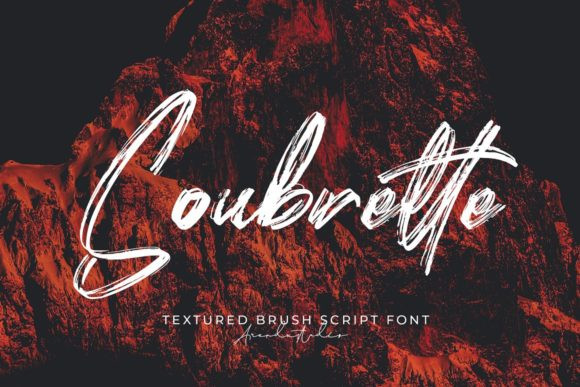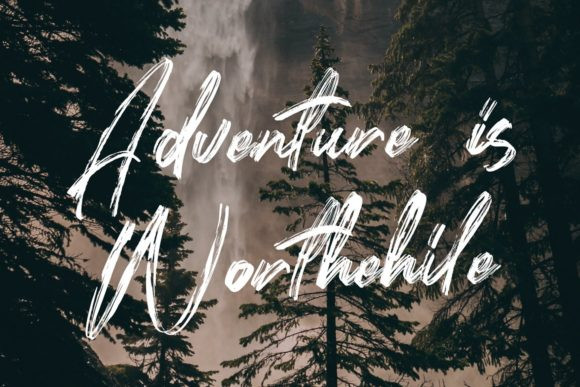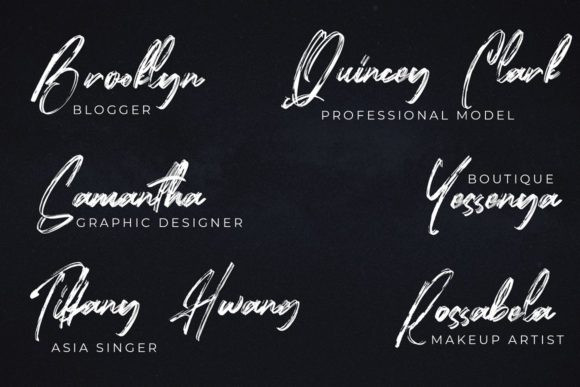
Soubrette Font
Soubrette is a unique and eye catching handwritten font made in a brush style. Use it to make your ideas even more realistic and create spectacular designs!